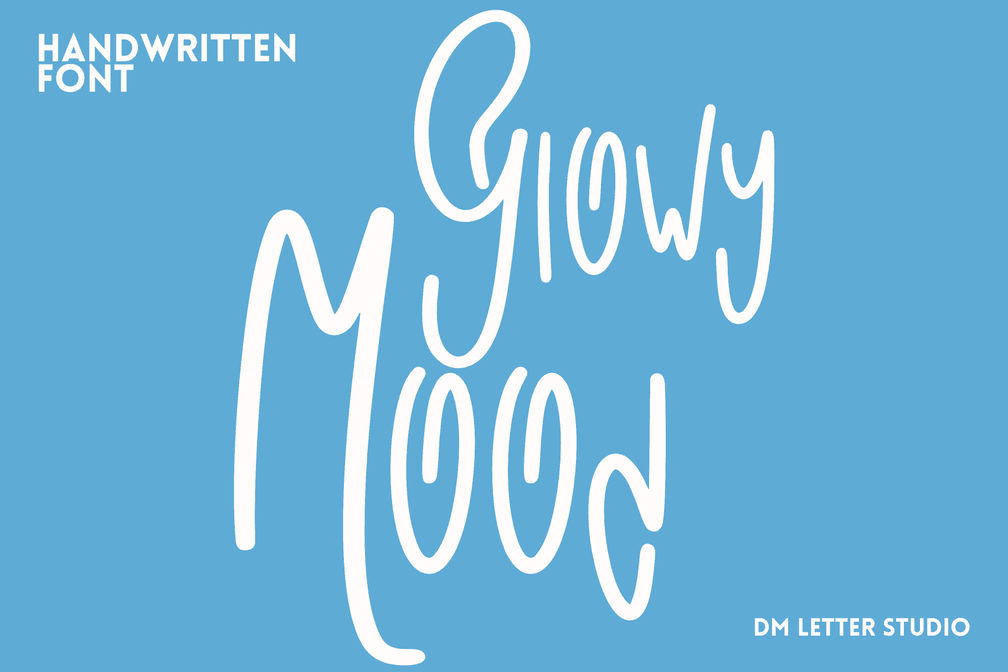
Glowy Mood
Glowy Mood is a playful handwritten script font that radiates nostalgic charm with a touch of neon flair. Its smooth, curvy strokes and glowing retro energy make it perfect for 80s-inspired designs, social media graphics, lifestyle branding, or anything that needs a cheerful and bright aesthetic. Glowy Mood feels like a handwritten note under a neon sign—warm, fun, and stylish.
• Retro Script Style: Flowing hand-drawn letters with smooth connections for an effortless, vintage vibe.
• Neon-Inspired Curves: Rounded edges and soft bends add a luminous glow to your design.